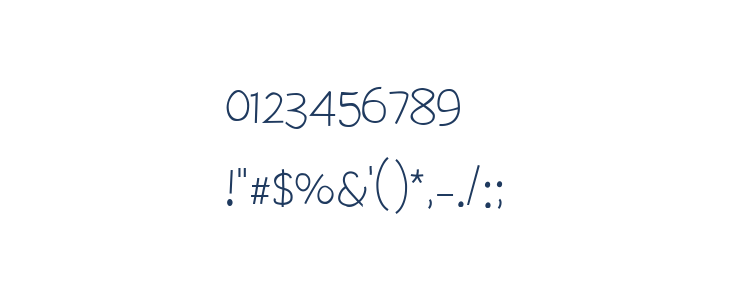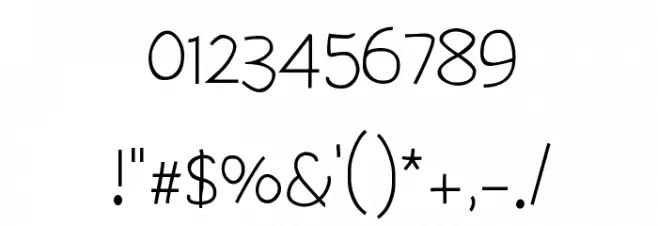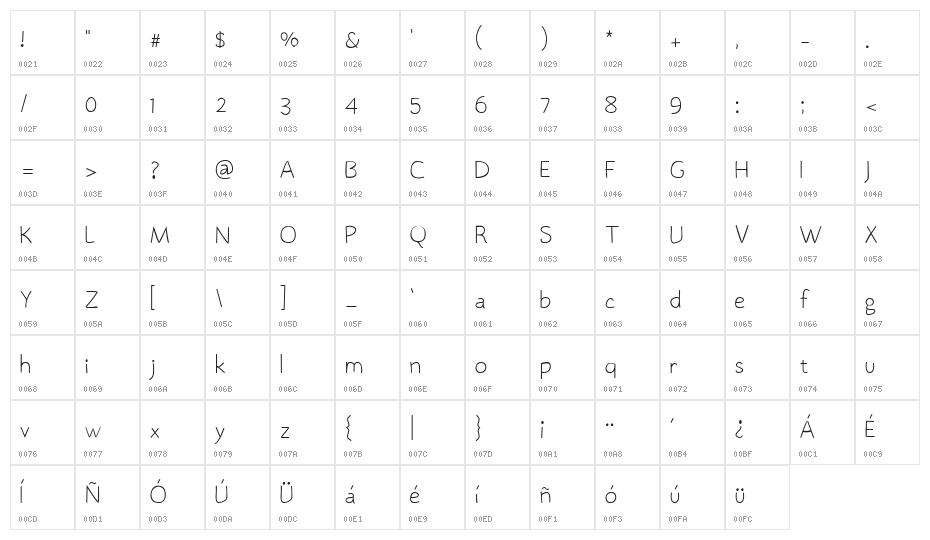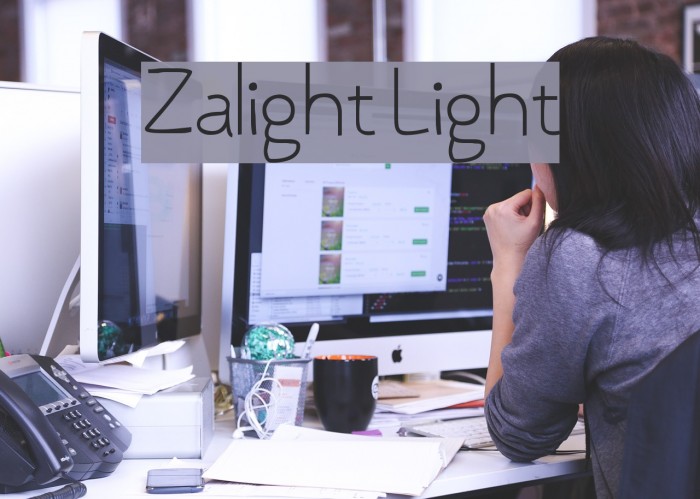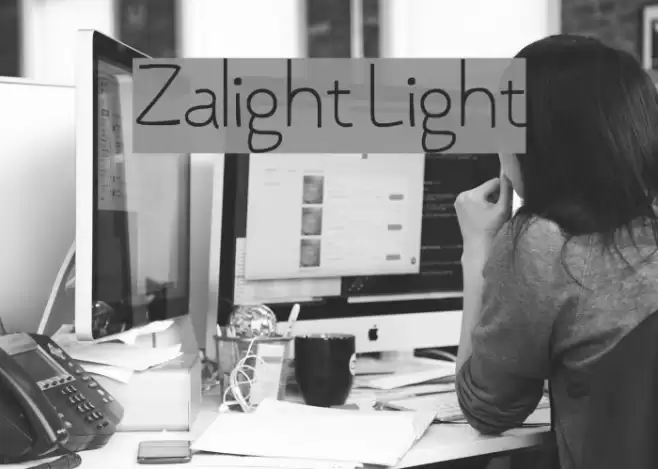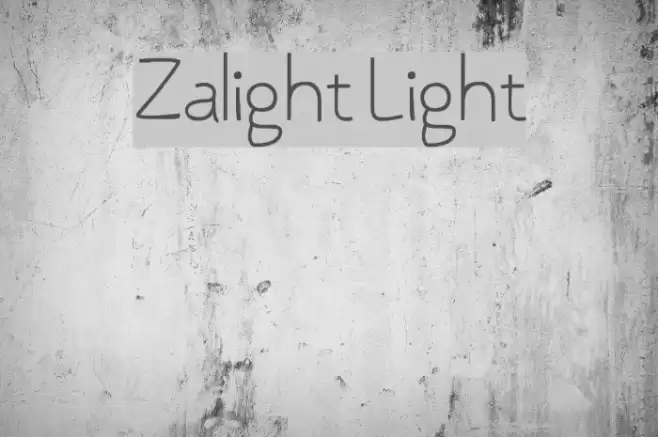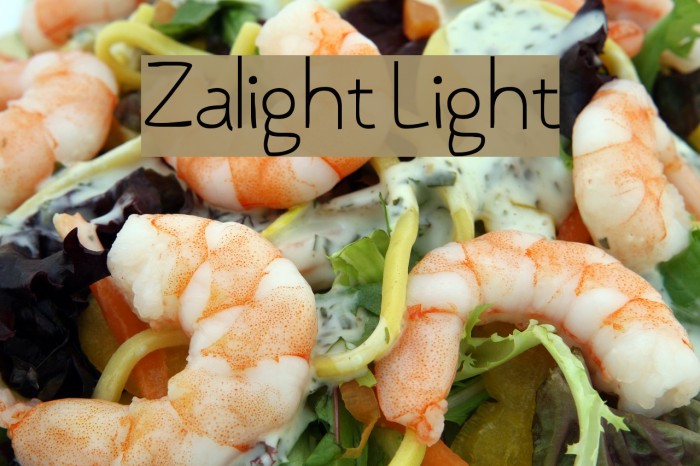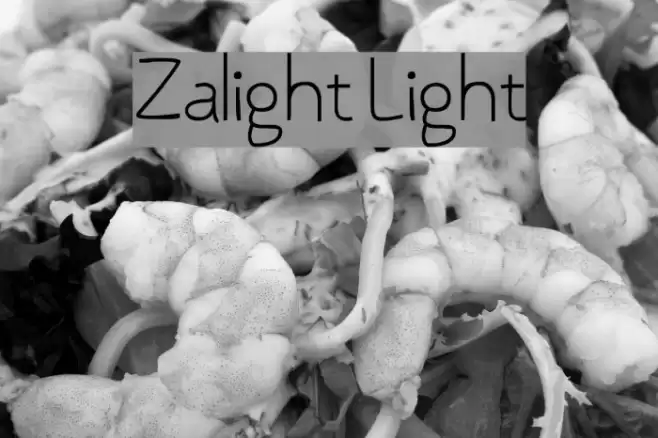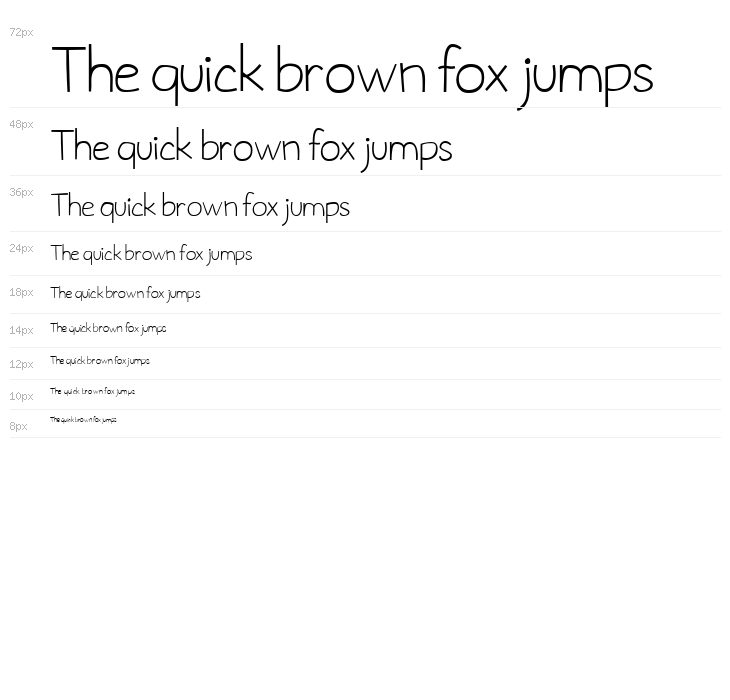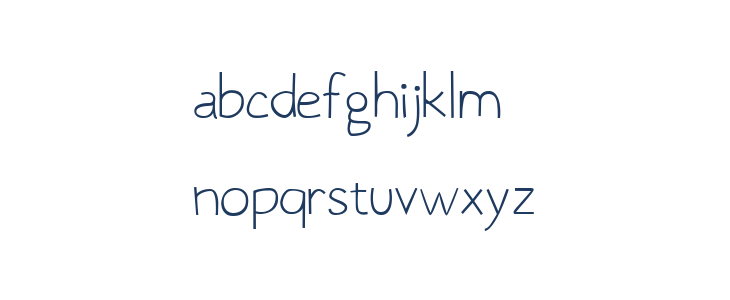
Zalight Light Font
Zalight Light Description
This font features a clean and modern design with a light and airy feel. The characters are slightly elongated, giving it a sleek and elegant appearance. The strokes are consistent in weight, contributing to a harmonious and balanced look. The rounded edges soften the overall style, making it approachable and friendly. The spacing between characters is generous, enhancing readability and providing a sense of openness. This font is versatile, suitable for a variety of design projects that require a contemporary and sophisticated touch.
| Proposed Projects | Ideal for branding, editorial design, websites, and advertising materials. |